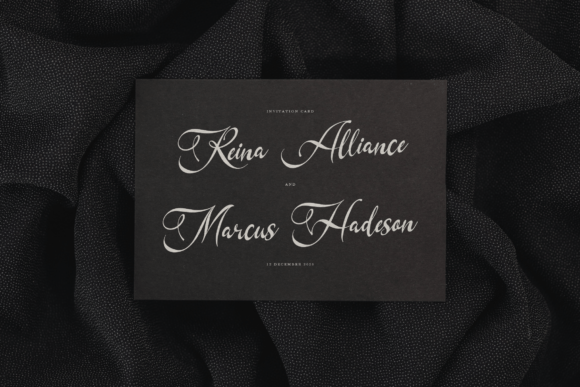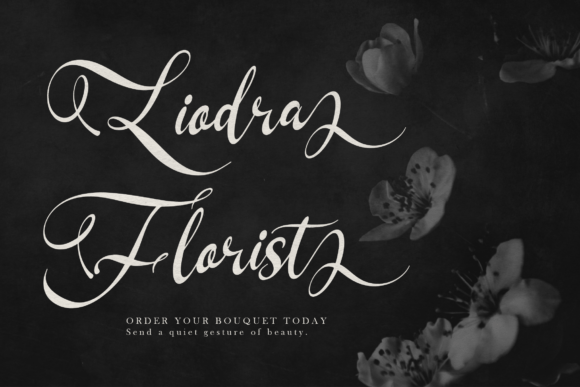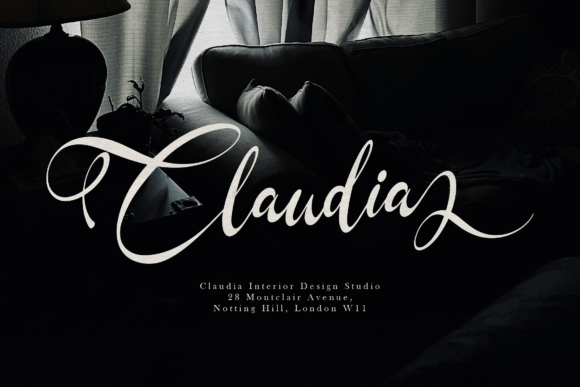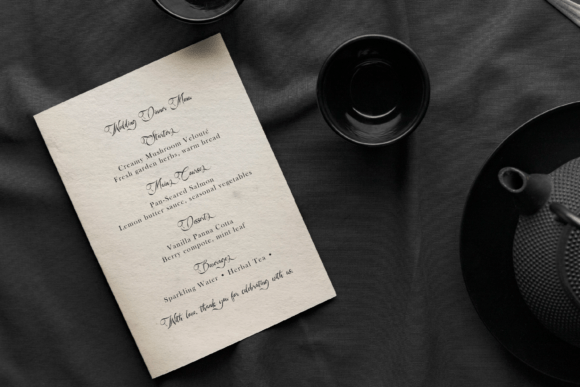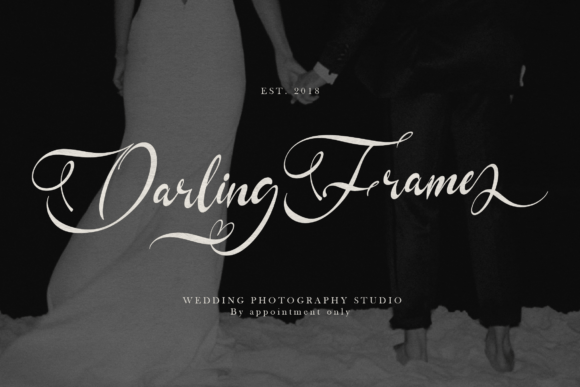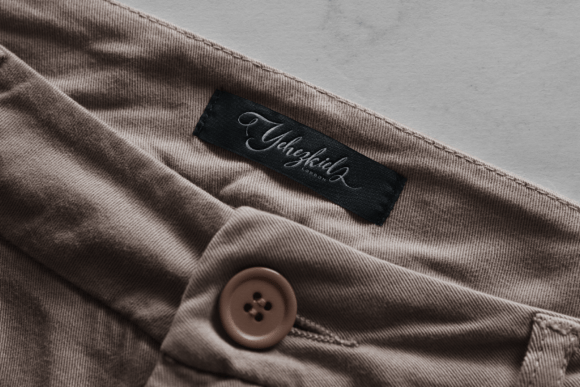
Introduction to Kadegon Font
Imagine you’re holding a delicate, handmade invitation in your hands, the paper whispering secrets of a romantic evening yet to come. The words dance across the page in elegant, flowing script, drawing you deeper into the mystery. This is the magic of the Kadegon Font – a masterful blend of artistry and typography that elevates every design project to new heights.
For designers seeking to infuse their creative projects with high-quality, sophisticated style, the Kadegon Font is a game-changer. With its fluid motion and dramatic swashes, this beautiful script font is perfect for luxury beauty branding, high-end wedding invitations, and poetic editorial layouts where every word needs to feel intimate and high-fashion.
Whether you’re working on a fragrance label, a romantic quote for a lifestyle magazine, or a signature-style logo, the Kadegon Font brings a sense of effortless luxury and timeless romance to every stroke. And with its transparent background and free download, it’s an invaluable design resource waiting to be explored.
Key Features of Kadegon Font
- High-quality, professional design ideal for creative projects requiring a unique touch.
- Unique characteristics include intricate details and a distinctive aesthetic, perfect for adding a touch of elegance to any design.
- Designed to be versatile, the Kadegon Font can be used for a variety of creative projects, from branding and advertising to editorial and publishing.
Honest Review: Kadegon Font
I recently had the chance to try out the Kadegon Font, and I must say it’s a great addition to any design library. The font is high quality, with clear and precise letterforms that make it perfect for a creative project.
One of the things that stands out about the Kadegon Font is its transparent background, which makes it easy to use with any design asset. This feature alone makes it a valuable resource for designers.
Here are some of the things that work well with the Kadegon Font:
- ✨ High quality letterforms
- ✨ Perfect for creative projects
- ⚠️ Limited character set
- ⚠️ Not suitable for large-scale text
Overall, I’m impressed with the Kadegon Font and would definitely recommend it to designers looking for a high-quality, free design resource. Its transparent background and high-quality letterforms make it a valuable addition to any design library.
Kadegon Font is suitable for a wide range of creative projects, including graphic design, branding, and digital art. Its unique style and high quality make it an excellent choice for designers who want to create stunning and professional-looking designs.